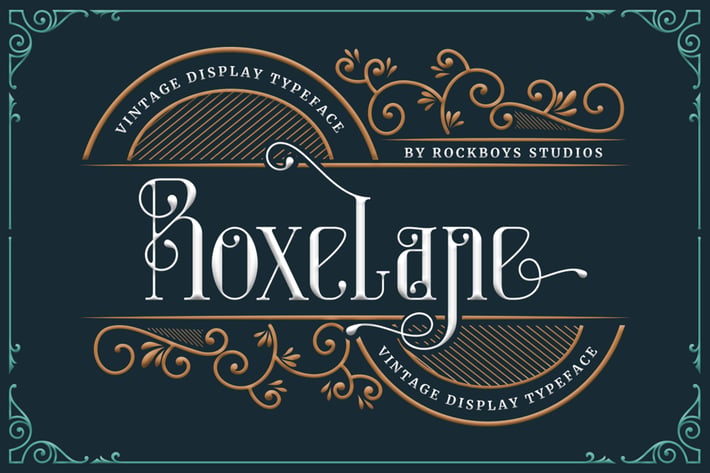
Roxelane - Vintage Display Font
Roxelane is a vintage styled, genuine display font. It has a clean, thin and smooth vibe and it will be a hit for any design that you want to add it to.